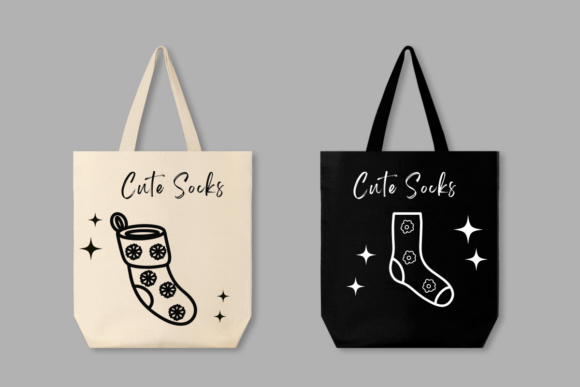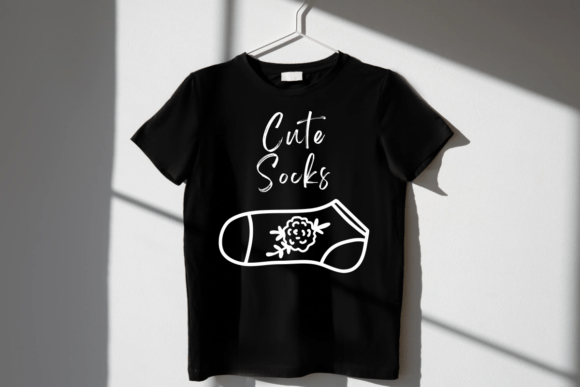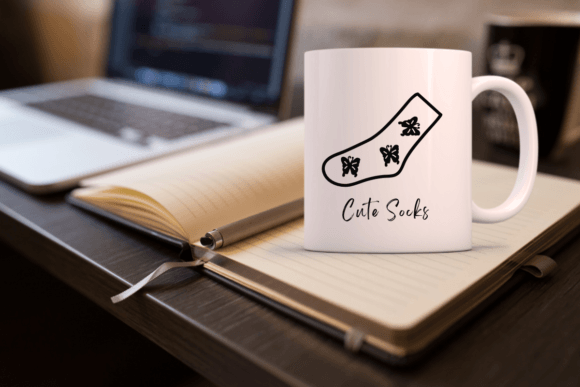
The Sock It to Me Moment: Discovering Cute Socks Font
I still remember the project that led me to Cute Socks Font like it was yesterday. I was working on a whimsical branding campaign for a children’s apparel line, and I needed a font that would capture the playful essence of their products. As I scrolled through font after font, nothing seemed quite right – until I stumbled upon Cute Socks. Each character was a delightful sock design, and I knew I had found my match! ✨
An Honest Review of Cute Socks Font
- ✨ Adorable sock designs for every character, adding a fun twist to any text
- ✅ Easy to use in various design platforms, making it versatile for different projects
- ✅ Perfect for crafting, scrapbooking, and other creative hobbies
- ✅ The playful vibe is contagious and can elevate the mood of any design
While Cute Socks Font is delightful, there are a few things to keep in mind: ⚠️ Some characters might be a bit tricky to read if you’re aiming for a more traditional look. Also, the font’s playful nature might not be suitable for more formal projects. 🤔
Exploring Alternatives to Cute Socks Font
The Backstory Behind Cute Socks Font
Cute Socks Font was inspired by the designer’s love for knitting and collecting quirky socks. The creator wanted to bring a piece of their own hobby into the digital world, making it easy for others to add a playful touch to their projects. The result is a font that’s both fun and functional! 😊
| Font Name | Cute Socks Font |
| Author | Suphitchaya |